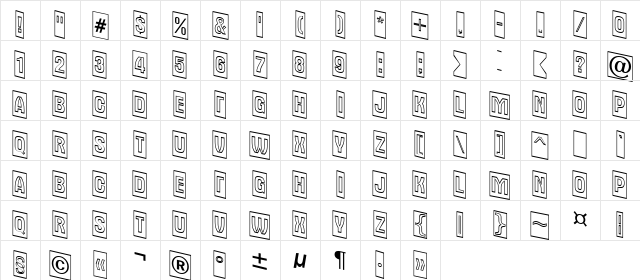
Complete a_AlternaTitulCmDnOtl Regular glyph index. Displaying only characters natively supported by a_AlternaTitulCmDnOtl Regular font.
a_AlternaTitulCmDnOtl is a composed and adaptable typeface that performs quietly and consistently across a wide range of design contexts.